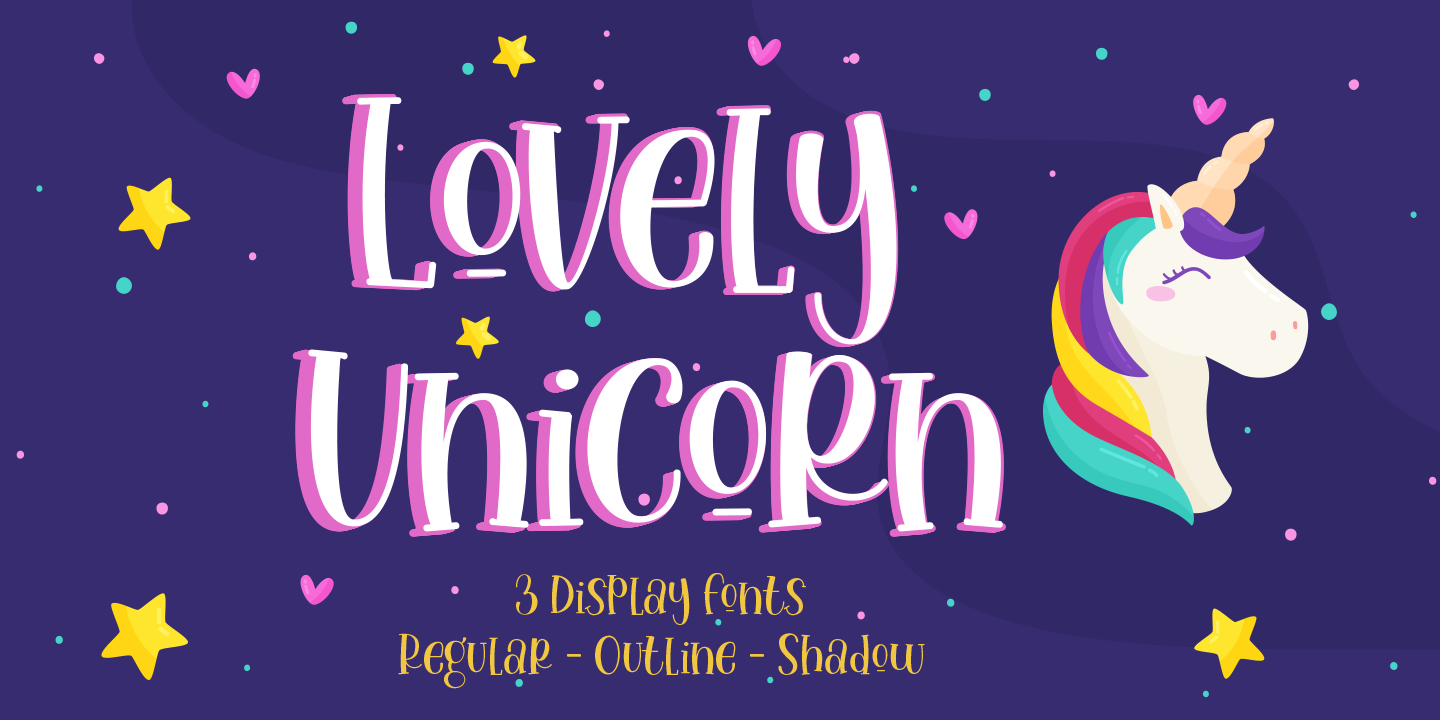
Lovely Unicorn Font is perfect for children's fantasy branding, magical party invitations, unicorn-themed product packaging, fairy tale book covers, enchanted toy designs, whimsical nursery decor, rainbow craft projects, and dreamy designs that require pure magical unicorn enchantment and childhood wonder.
This font is exciting because it captures the pure magic and innocent joy of unicorn mythology through its sparkly, whimsical letterforms that seem to dance with rainbow colors and fairy dust. The enchanting character design embodies the dreams and fantasies of childhood imagination, making it perfect for brands seeking to create magical experiences that inspire wonder and delight in children and families.
Lovely Unicorn Font belongs to the fantasy display font family, featuring magical styling and unicorn elements that enhance its appeal for children's entertainment and fantasy-focused design applications.
Whether you're creating magical children's branding or enchanted fairy tale graphics, Lovely Unicorn Font Free Download delivers maximum sparkle and unicorn magic. This typeface perfectly balances fantastical creativity with readable functionality, making it essential for designers working on children's projects that celebrate imagination and wonder. The font's magical presence works beautifully in children's books, party materials, and fantasy communications, providing excellent readability while maintaining its unicorn character that transforms any design with pure enchantment and creates unforgettable magical experiences across all media platforms and children's entertainment communications.